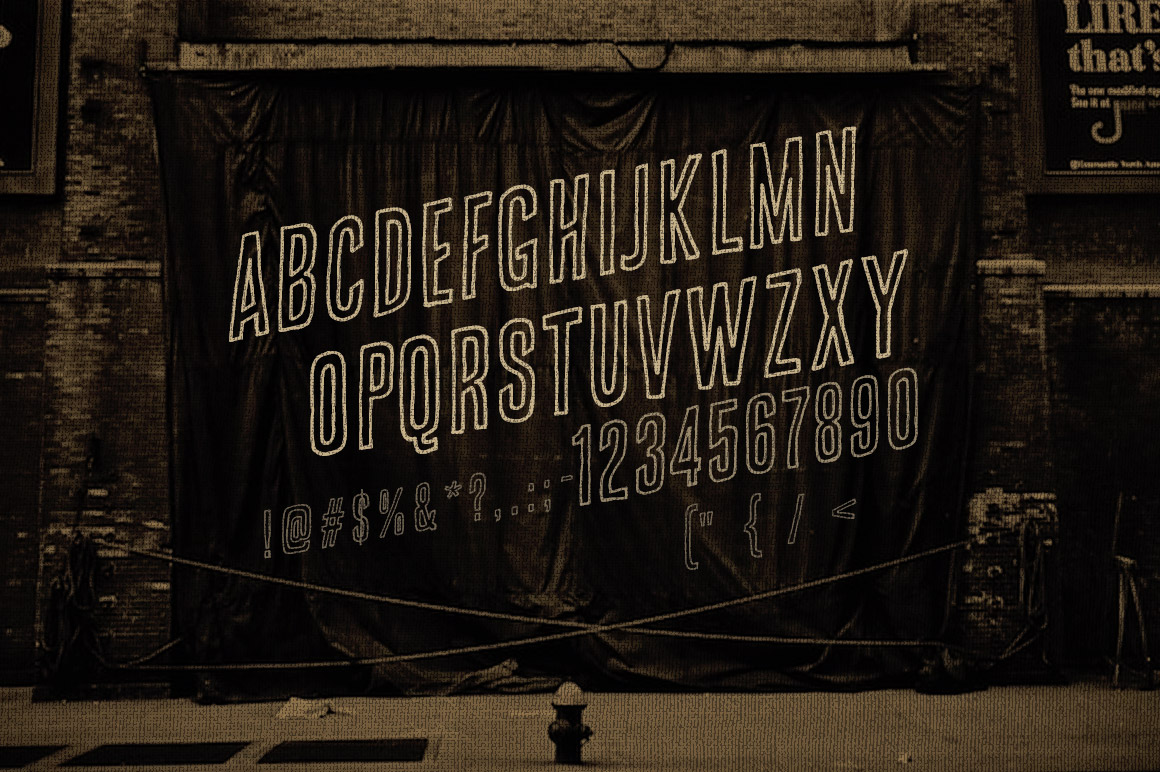
Retro/Vintage Hand Drawn Fonts
Typography plays a very significant role in present graphic design. Specialy hand drawn style custom fonts are very popular these days.
1. Sayless Custom Font
Vintage style custom font. Cool handwritten serif font for your new artworks 😉
2. Let’s Do This Custom Font
Grunge style custom font. Cool handwritten font for your new artworks 😉
3. Brooklyn Coffee Custom Font
Vintage style custom font in 2 versions – regular and outline
4. Bronx Shoes Custom Font
Vintage style custom font in 2 versions – regular and outline
5. Just Be Cool Custom Font
Vintage style custom font. Cool handwritten serif font for your new artworks 😉